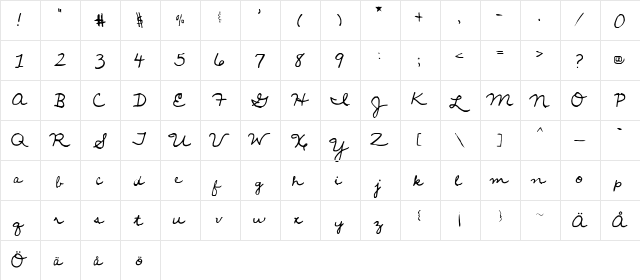
janellescript regular Font Preview
janellescript regular
Design Context for janellescript Typeface
janellescript flows with the natural rhythm of handwritten lettering, making it ideal for designs that call for warmth and personal expression.
Font Pairing: Combine janellescript with a simple geometric sans for maximum contrast — the tension between flowing curves and clean structure is a classic typographic pairing.
Pro Tip: Use janellescript for short runs of text — names, titles, or taglines. Extended body copy in script faces tires the eye quickly.